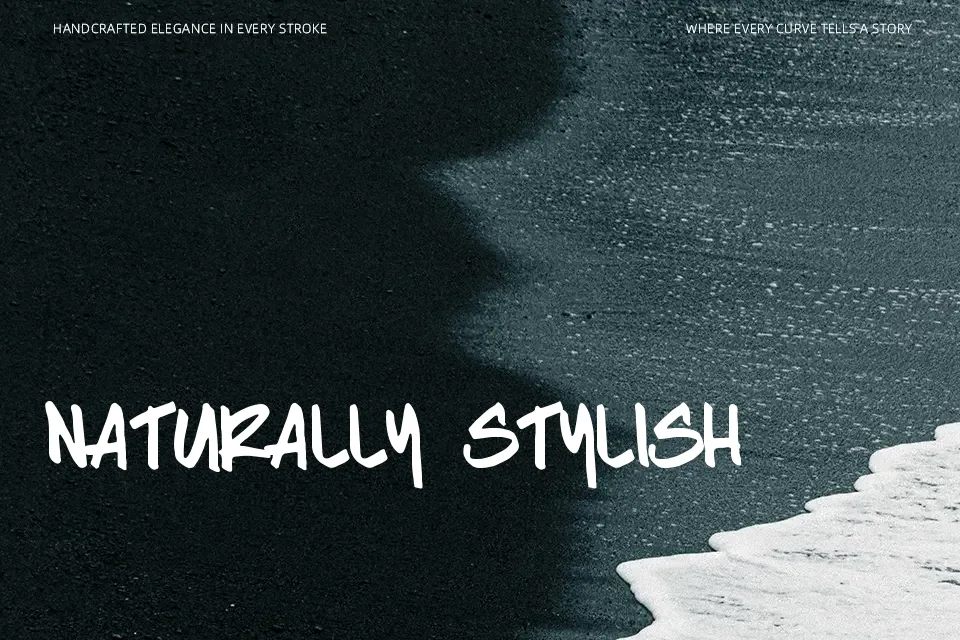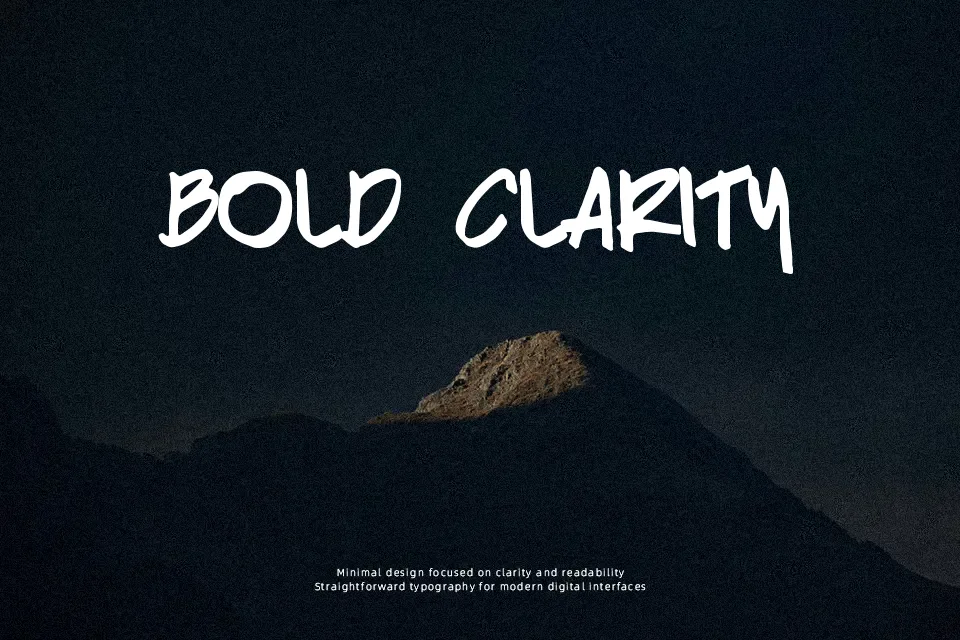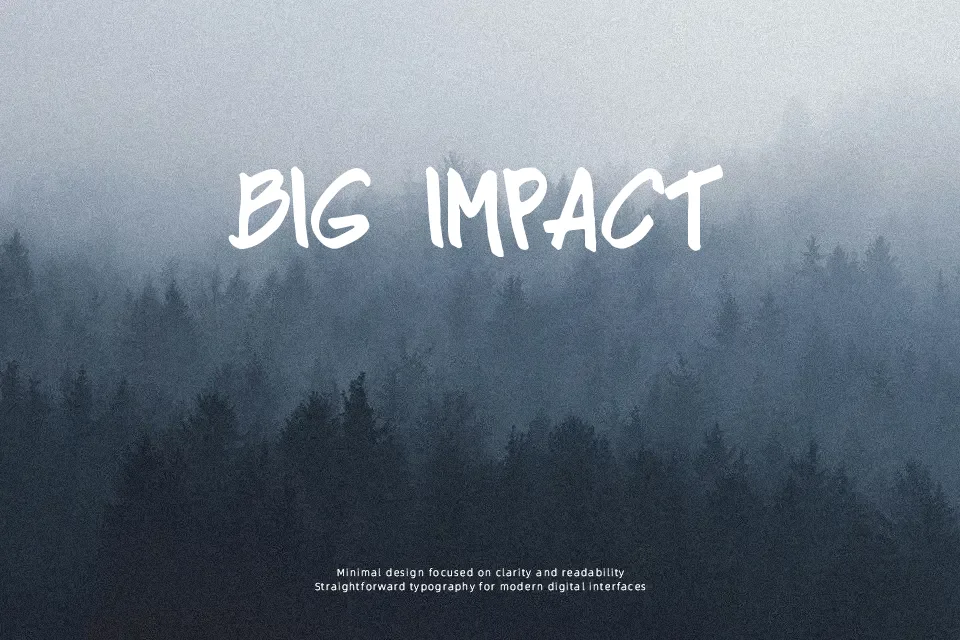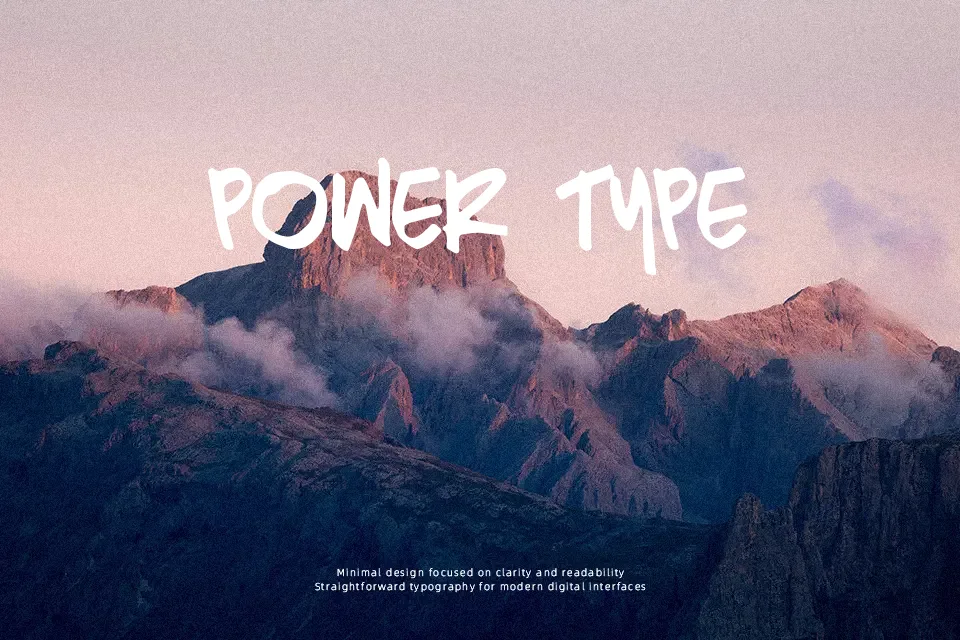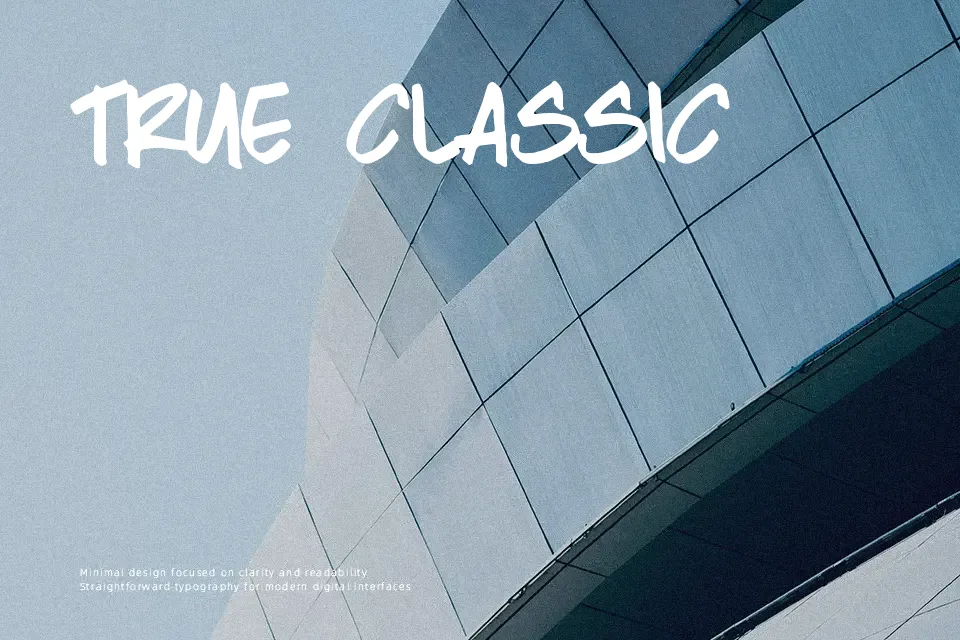
Razing Font
Designed by Marcelo Rizzetto
A short product label or energetic headline benefits greatly from the dynamic, hand-drawn structure of Razing Font, which utilizes heavy strokes and uneven proportions to give the design a raw personality. The chunky letterforms showcase informal outlines and varying widths, generating a lively rhythm across words. Its substantial stroke weight ensures strong clarity in large display applications like event graphics or casual packaging. The slightly irregular spacing adds distinct character to punchy phrases. However, dense forms reduce comfort during extended reading, making the typeface much less suitable for long paragraphs. This rebellious, marker-like style thrives in creative projects where an unapologetic visual statement is required.
casual product packaging
comic book titles
urban streetwear branding
corporate documents
Perfect for branding, headline, and packaging, with a bold and comic style.